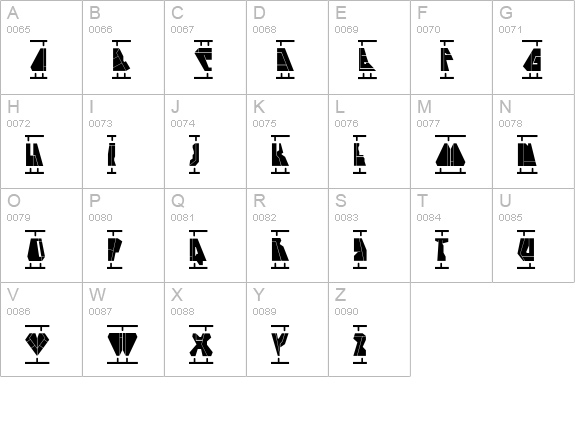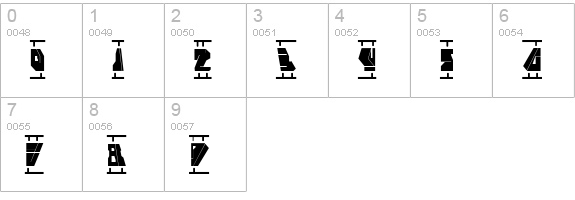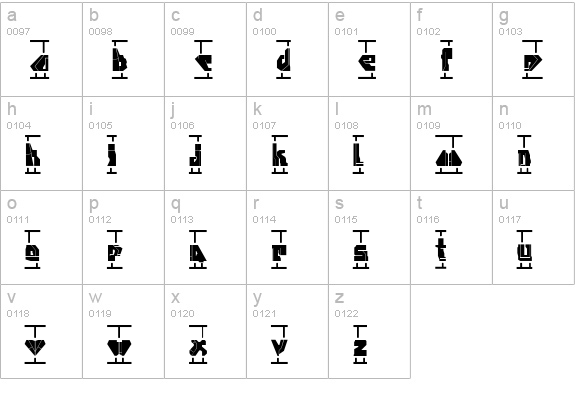
Stealth-Model Font Details
Introducing the captivating Stealth-Model font, a sleek and sophisticated typeface that effortlessly combines elegance with an edgy twist. This font is perfect for those seeking a modern and mysterious aesthetic, as it exudes an air of intrigue and sophistication. Stealth-Model font is meticulously crafted to showcase its unique design elements, making it a standout choice for a wide range of projects. Whether you're creating a logo, designing a website, or crafting eye-catching marketing materials, this font will effortlessly elevate your work to new heights. What sets Stealth-Model font apart is not only its striking visual appeal but also its versatility. It seamlessly blends into various design styles, adapting effortlessly to any creative vision. Its clean lines and sharp angles make it ideal for both futuristic and contemporary designs, while its subtle details add a touch of sophistication to more classical layouts. But what truly makes Stealth-Model font a must-have is that it is freely available to download at FontsMarket.com. Yes, you read that right - this exceptional font can be yours without spending a dime. FontsMarket.com is renowned for offering a vast selection of high-quality fonts, and now you have the opportunity to add Stealth-Model font to your collection, completely free of charge. So why wait? Unlock the potential of your designs with the captivating Stealth-Model font. Download it for free at FontsMarket.com and experience the seamless blend of elegance and edginess that this font brings to your creative projects. Don't miss out on this incredible opportunity to enhance your designs with a font that exudes sophistication and mystery. Get your hands on Stealth-Model font today and elevate your designs to new levels of excellence.